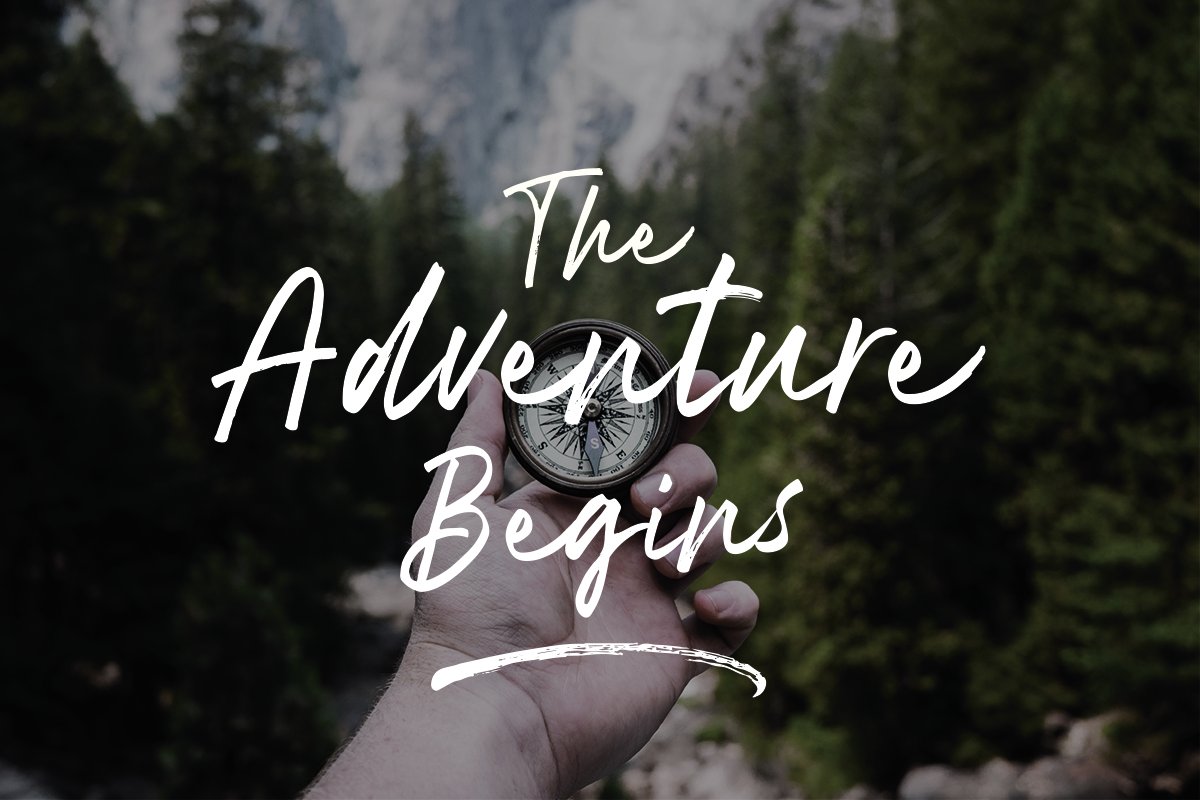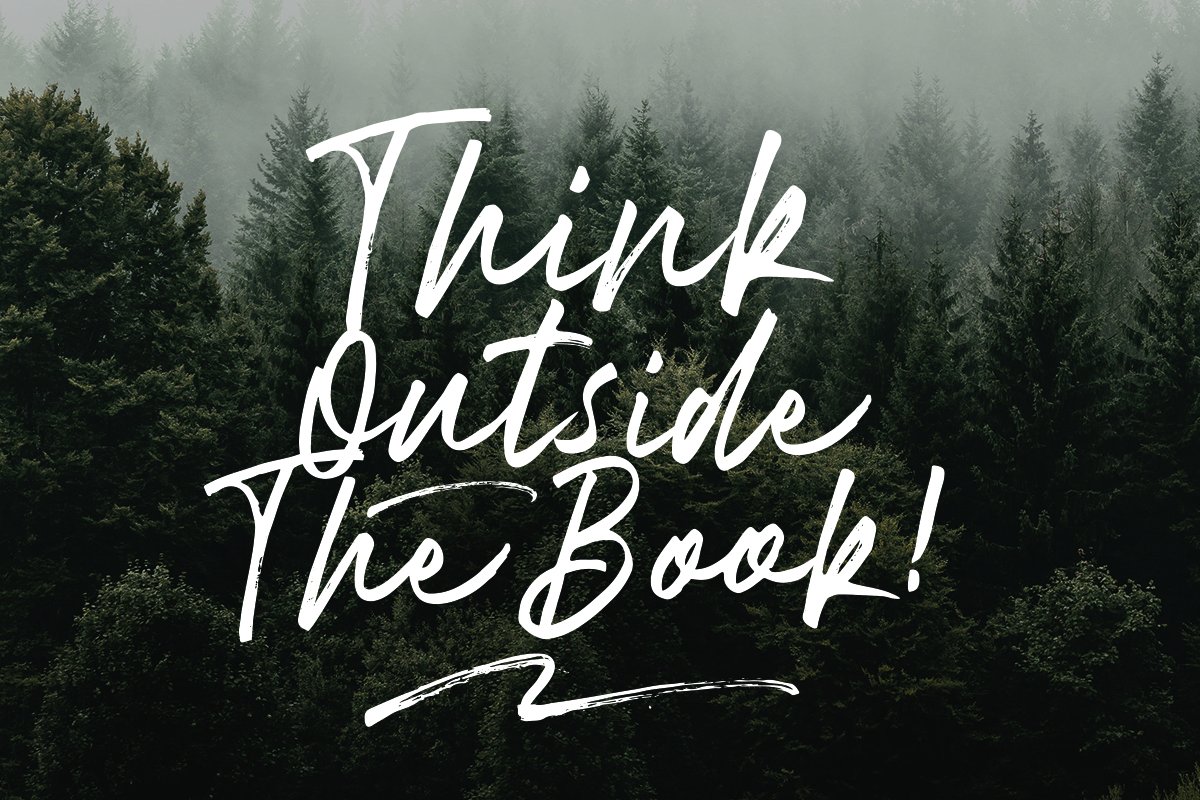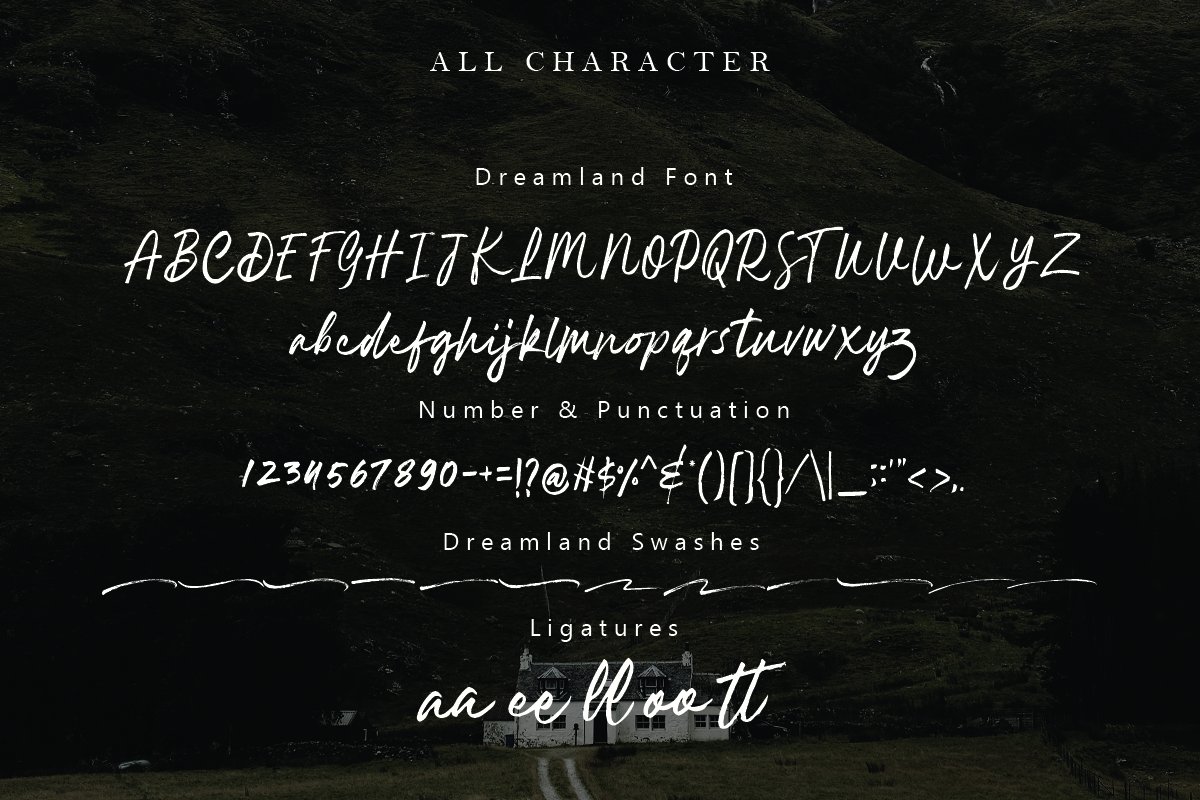
Dreamland Brush Font Free Demo
Dreamland brush font is designed to be combined perfectly and allows you to make writing like your own handwriting. Dreamland font comes with uppercase characters, basic punctuation, and numbers. This font perfects to use for branding, apparel design, logo, display designs, etc. Thanks toΒ Megi Satyo for sharing this font demo for free.